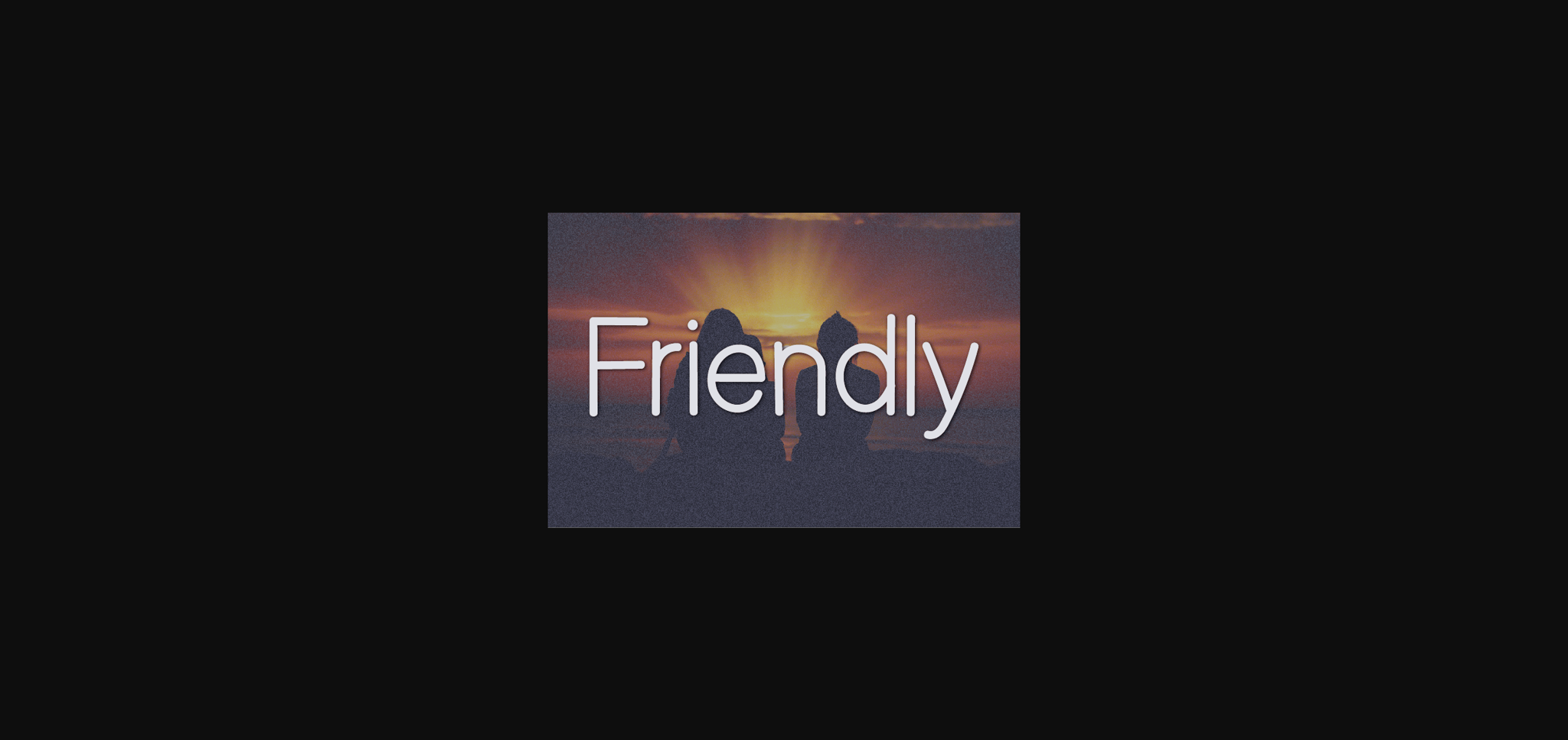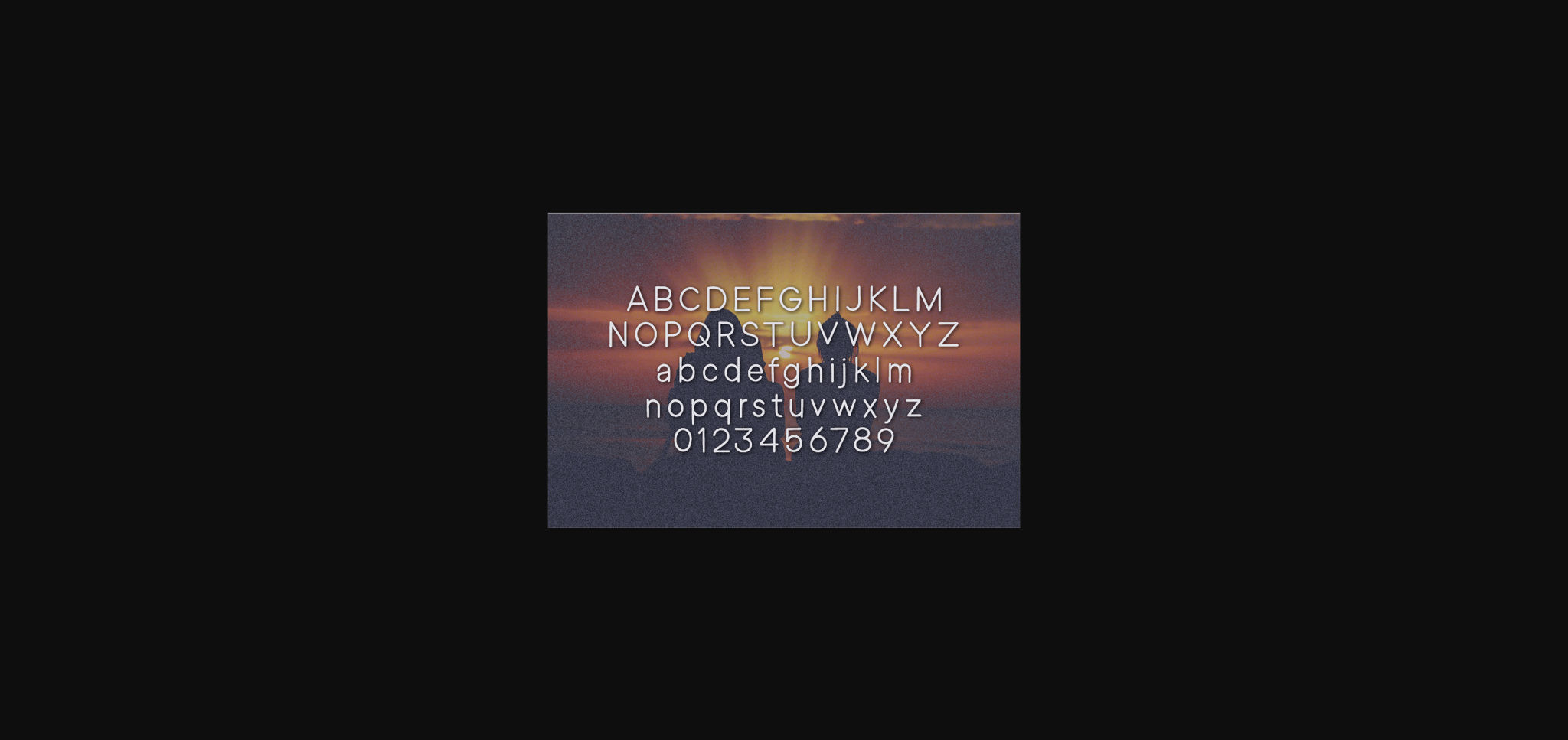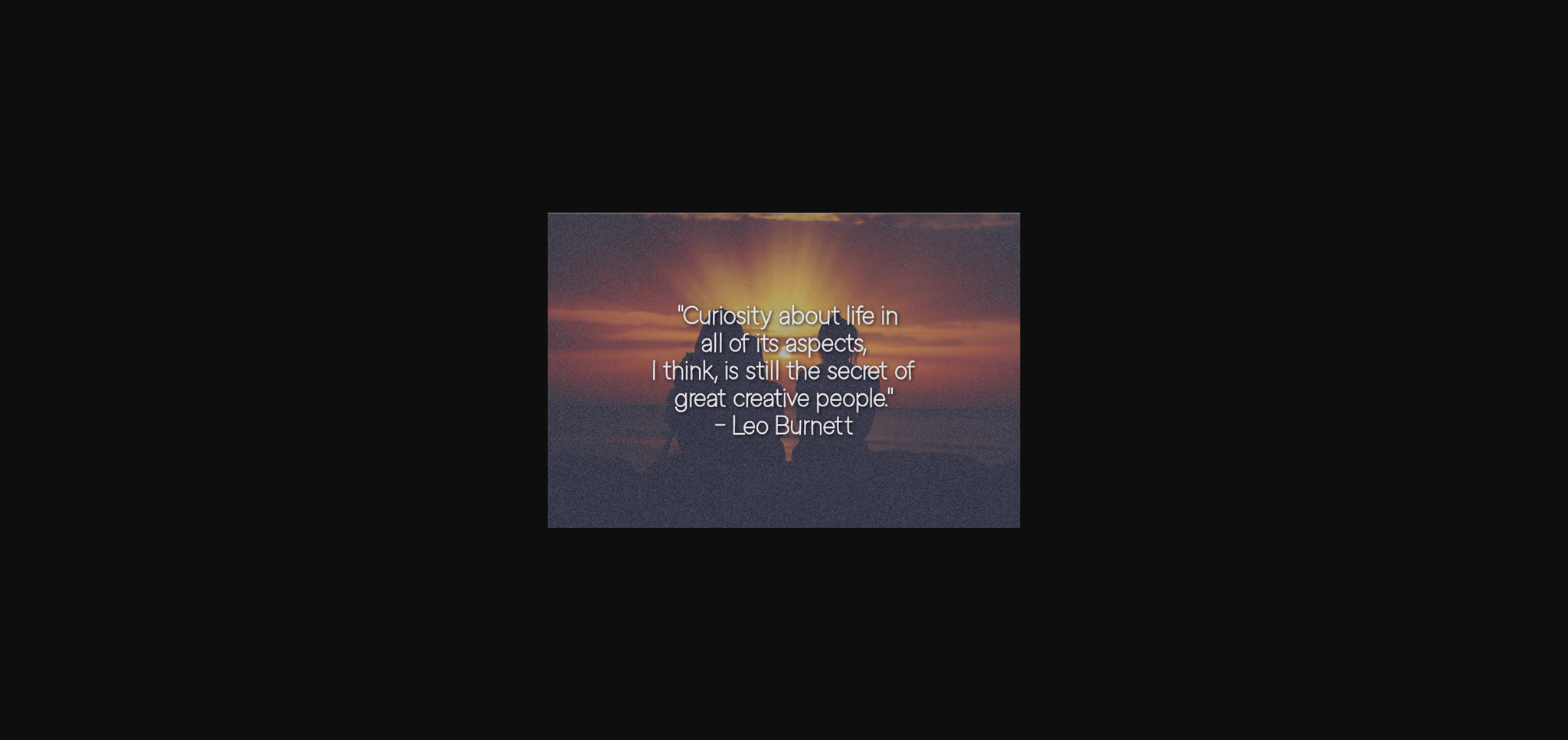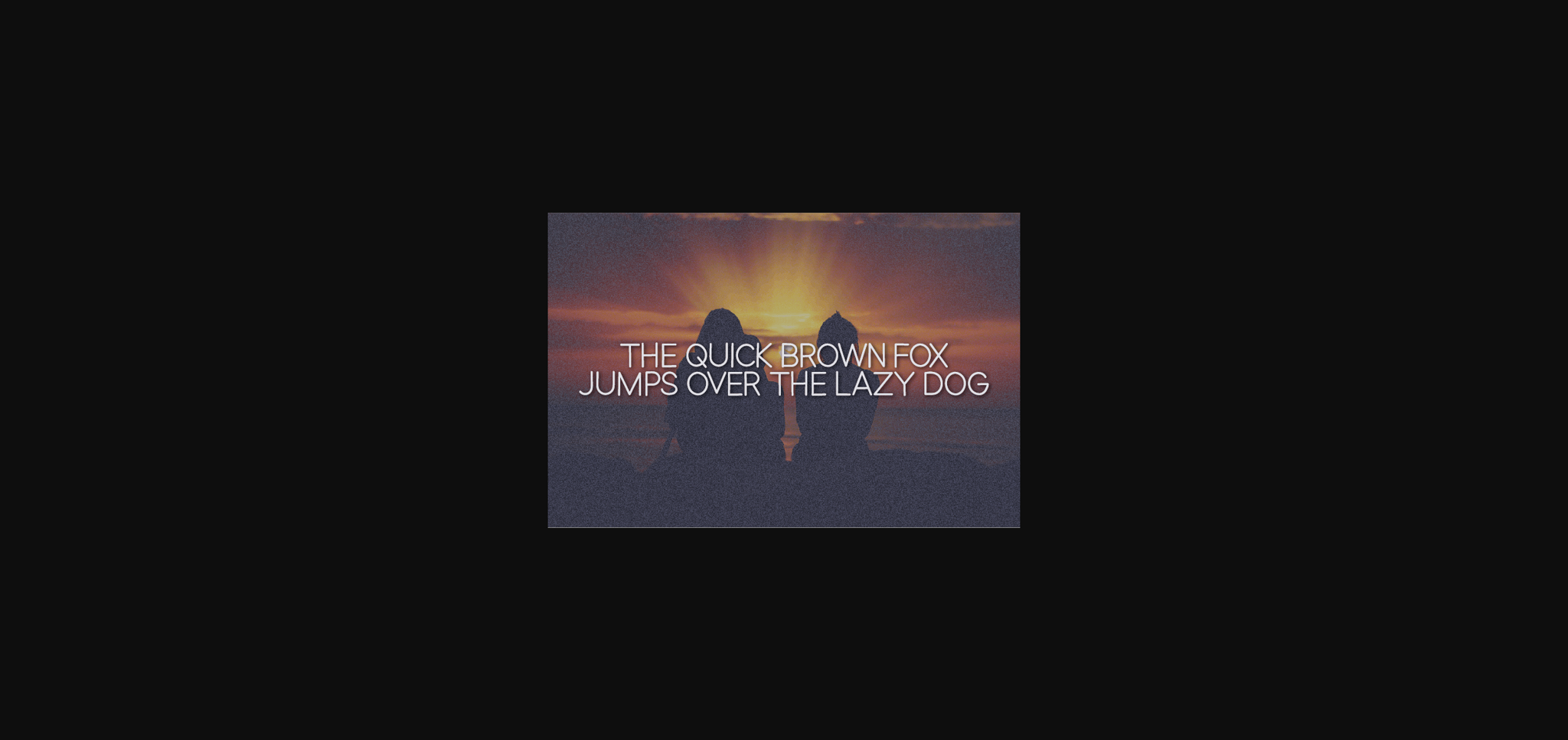
HomeSans Serif FontsFriendly Font Sans Serif Fonts Friendly Font FacebookXPinterestWhatsApp 1 of 6 ... Friendly Font Poster 2... Friendly Font Poster 3... Friendly Font Poster 4... Friendly Font Poster 5... Friendly Font Poster 6... About Friendly Font Friendly is a casual and neat sans serif font that impresses through its natural and elegant style. This typeface will enhance your craft with little effort, making your product stand out from the competition. DOWNLOAD NOW People also explored Fathan Font Xmas Tree Font Department Store JNL Font Clanadea Font Aversa Font Botfon Font Northon Font Magic Farmhouse Font Simple Designer Font 469 0 TagsFriendly Font Previous articleEconomical FontNext articleWinterfall Font LEAVE A REPLY Cancel reply Comment: Please enter your comment! Name:* Please enter your name here Email:* You have entered an incorrect email address! Please enter your email address here Website: Save my name, email, and website in this browser for the next time I comment. Personal Use Free Susanna Personal Use Free Read more about this font Hanifah Personal Use Free Read more about this font Good Times Personal Use Free Read more about this font UseYourImagination Personal Use Free Read more about this font BLOG Free Fonts Risk: Why Free Fonts Can Be Dangerous for Designers Free Fonts Risk: Why Free Fonts Can Be Dangerous for Designers Using free fonts is a common practice in web and graphic design. However, the... Modern Sans-Serif Fonts That Brands Love in 2025 Using Fonts in Digital Marketing: Tips to Strengthen Your Brand Identity Best Fonts for YouTube Videos: Make Your Thumbnails Stand Out